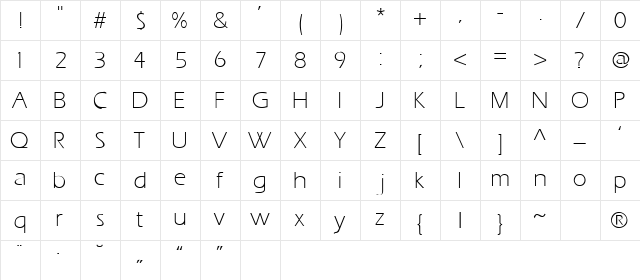
EuroCanal_Lite Normal
Design Context for EuroCanal_Lite
EuroCanal_Lite is a composed and adaptable typeface that performs quietly and consistently across a wide range of design contexts.